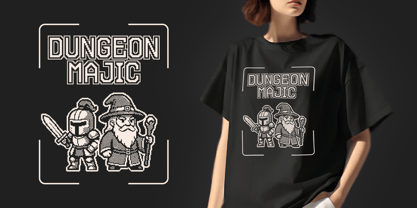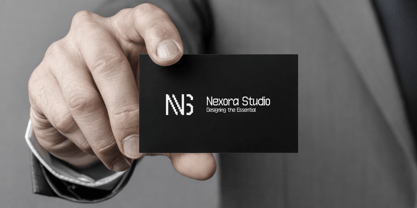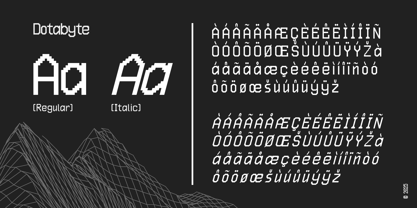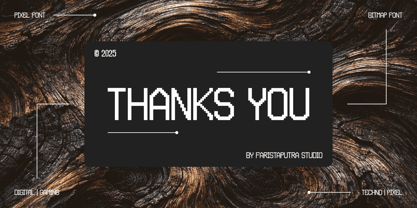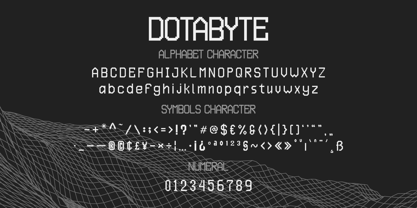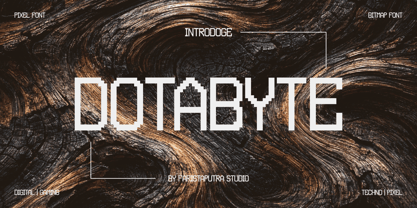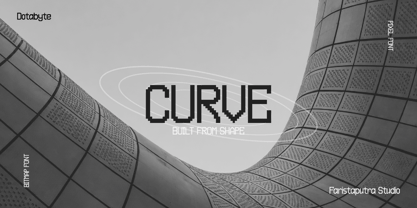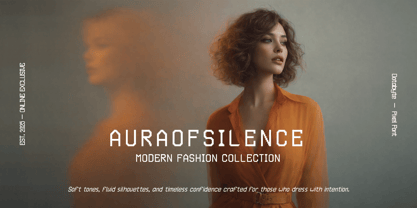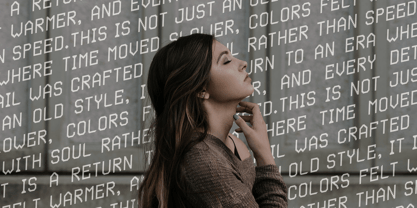
FA Dotabyte
by Faristaputra
The FA Dotabyte Font Family was designed by Frederik Aristaputra and published by Faristaputra. FA Dotabyte contains 2 styles and family package options. More about this family
DOTABYTE is a bold pixel bitmap display font inspired by retro gaming, digital screens, and modern techno aesthetics. Built on a clean grid system, it delivers strong, blocky letterforms with a clear pixel identity. Designed for game titles, digital posters, tech branding, UI concepts, and futuristic visuals, DOTABYTE combines nostalgic 8-bit character with a contemporary design approach. Its solid structure ensures high impact and readability at large sizes, making it ideal for display-focused typography.